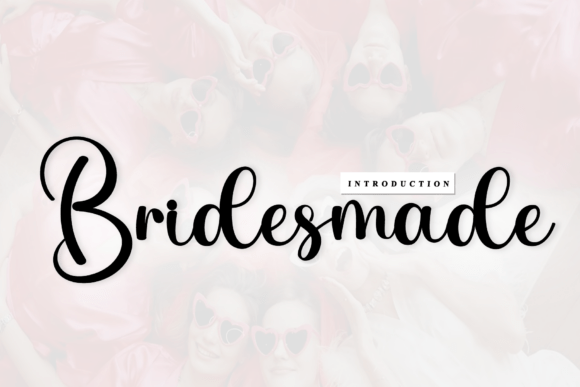
The Bridesmade Font: A Sophisticated Script for Creative Projects
I’ll never forget the time I was working on a branding project for a local artisan bakery. I had spent hours perfecting the logo design, but something was missing. The font I had chosen just didn’t feel right – it was too generic, too bland. I needed something that would capture the warmth and personality of the bakery’s handmade treats. That’s when I stumbled upon the Bridesmade font. ✨
This sophisticated and rhythmic script font has been a game-changer for my design projects. Its unique blend of calligraphic style and organic aesthetic makes it perfect for artisanal food branding, boutique product packaging, upscale lifestyle marketing, and creative editorial titles.
- ✨ The sweeping, looping ascenders that give the font its artisanal feel
- ✅ The warm, organic aesthetic that adds a touch of personality to any design
- 💫 The versatility of the font, which works well for both digital and print projects
- 🎨 The range of OpenType features, including stylistic alternates and glyphs
While the Bridesmade font is incredibly versatile, there are a few things to keep in mind. 🤔
- ⚠️ The font can be a bit tricky to read at very small sizes, so it’s best used at larger sizes or for headlines.
- ⚠️ Some of the more intricate glyphs and swashes can be a bit finicky, requiring some manual adjustment to get just right.
The Story Behind Bridesmade
The Bridesmade font was designed with the modern maker in mind. Its creator, a talented typographer, wanted to craft a font that would capture the warmth and personality of handmade artisanal products. 💫
The font’s sweeping ascenders and looping descenders were inspired by traditional calligraphy, while its organic aesthetic was influenced by the natural world. 🌿
Q: What is the Bridesmade font best used for?
A: The Bridesmade font is perfect for artisanal food branding, boutique product packaging, upscale lifestyle marketing, and creative editorial titles.
Q: Is the Bridesmade font easy to read?
A: The Bridesmade font is generally easy to read, but it can be a bit tricky at very small sizes. It’s best used at larger sizes or for headlines.